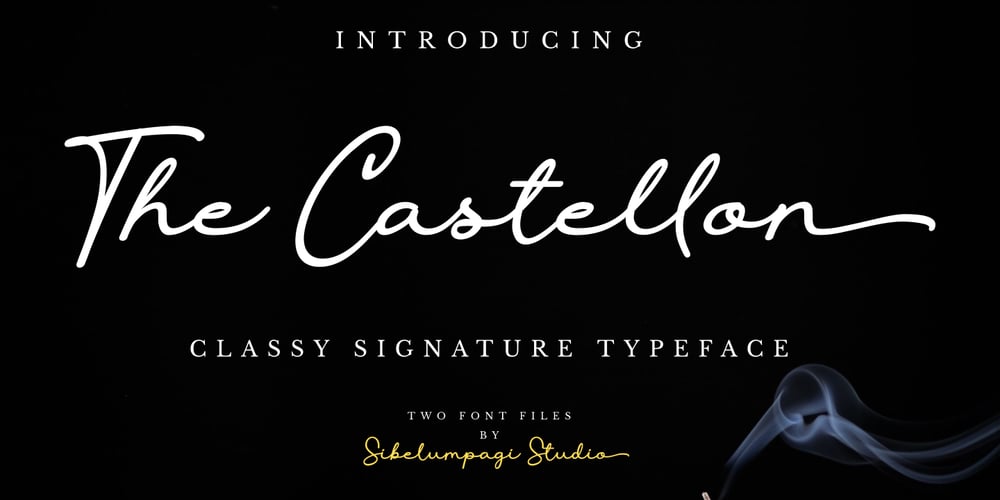
The Castellon Font Family was designed by Faja Abdul Fatah and published by Sibelumpagi. The Castellon contains 3 styles and family package options. The Castellon is a classy signature typeface, it includes two styles regular and slant. It has an elegant style which can be used to add a natural touch to your designs. It is a good choice for watermarks on photography, signature, logo designs, quotes, branding, business cards, and many other design projects.